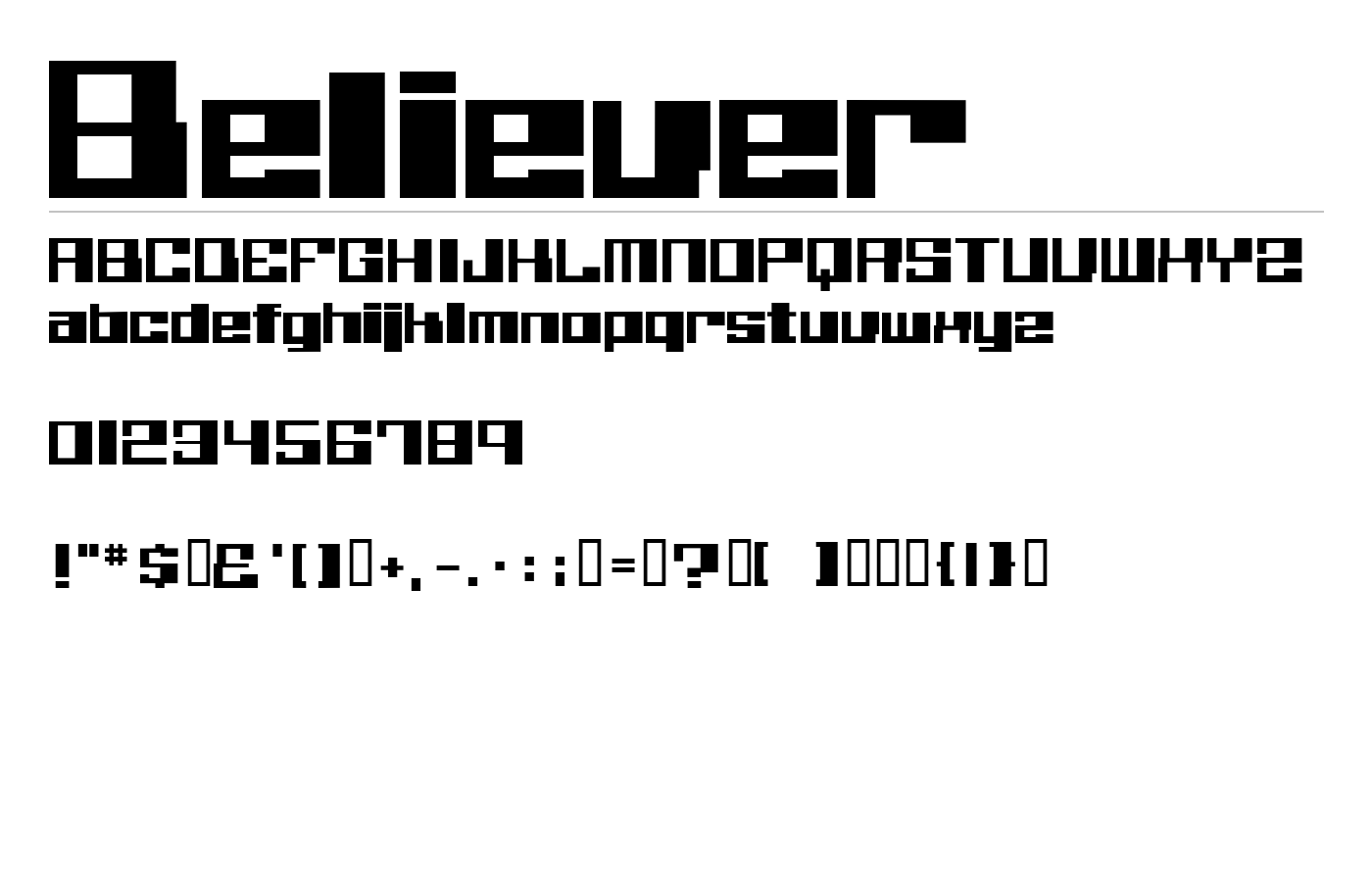
Believer is a bold, geometric sans serif font with a strong, blocky appearance and high contrast between thick and thin lines. Its square shapes and sharp edges give it a modern, technical feel, making it ideal for headlines, logos, and designs that seek a futuristic or industrial vibe. This font works well in branding and editorial contexts where a striking, confident style is needed.
Believer Font